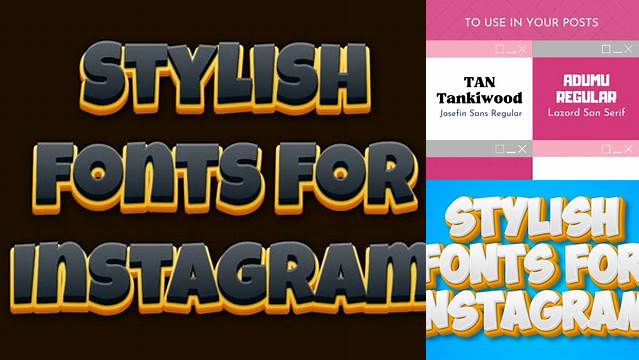
Fonts For Instagram: How To Make Your Posts Stand Out
Are you looking to spice up your Instagram game? Do you want your posts and stories to stand out from the crowd? Well, one of the easiest and most effective ways to do that is by using unique and eye-catching fonts. Let's dive into the world of fonts for Instagram, where we'll explore how to use them, where to find them, and how to make your Instagram content truly shine. We all know how crucial it is to make your Instagram profile pop. In this digital age, visual appeal is everything. Think about it, guys – how many times have you scrolled through your feed, only to stop at a post that had a certain je ne sais quoi? Often, it’s the font that grabs your attention. Using different fonts isn't just about aesthetics; it's about branding, conveying emotion, and making your content more engaging. Your choice of font can speak volumes about your personality or your brand’s identity. A playful script font might be perfect for a fun, creative account, while a bold, sans-serif font can give off a more modern and professional vibe. Choosing the right font can dramatically improve your content's impact. Consider how different fonts evoke different feelings – a handwritten style can feel personal and intimate, while a clean, minimalist font can project sophistication and clarity. This is why understanding the nuances of typography is key to crafting a compelling visual narrative on Instagram. We'll also cover some of the best tools and apps to help you incorporate these cool fonts seamlessly. Whether you're a seasoned influencer or just starting out, mastering the art of Instagram typography is a game-changer. So, let’s get started and turn your Instagram profile into a visual masterpiece!
Why Fonts Matter on Instagram
Let's face it, guys, Instagram is a visual platform. You need to captivate your audience in a split second, and the font you use plays a huge role in this. A well-chosen font can communicate your message more effectively, reflect your brand's personality, and make your content more engaging. Think of fonts as the voice of your visuals. Just like you choose your words carefully, your font should be a deliberate choice that enhances your overall message. When you use the same generic font as everyone else, your content risks blending into the background. But when you select a font that’s unique and aligned with your brand, you instantly create a distinct visual identity. This is especially important for businesses and influencers looking to establish a recognizable brand presence. Fonts are more than just pretty letters; they’re a powerful tool for communication. They can convey a wide range of emotions and tones, from playful and whimsical to serious and professional. A bold, impactful font can grab attention and make a statement, while a softer, more delicate font can create a sense of intimacy and elegance. And, let’s not forget about readability. A stylish font is useless if your audience can’t easily read it. Balancing aesthetics with functionality is crucial. Your followers should be able to quickly grasp your message without straining their eyes. Imagine scrolling through your feed and seeing a post with a font that perfectly captures the mood – it's instantly more appealing, right? That's the power of a great font. It draws people in, holds their attention, and ultimately makes your content more memorable. So, take the time to explore different fonts and find the ones that truly resonate with your style and message. It's one of the simplest yet most impactful ways to elevate your Instagram presence.
Finding the Perfect Font for Your Instagram
Okay, so where do you find these amazing fonts? Instagram itself has a limited selection of fonts for stories and reels, but don't worry, there are tons of apps and websites out there that can help you create text with custom fonts that you can then copy and paste into your Instagram posts and bios. Let's explore some of the best resources for finding the perfect font to express your unique style. First off, let's talk about font generator websites. These are fantastic because they're usually free and super easy to use. You just type in your text, and the website generates a variety of font styles for you to choose from. Websites like LingoJam, CoolSymbol, and Fonts for Instagram are popular options. They offer a wide range of fonts, from elegant scripts to bold, attention-grabbing styles. One thing to keep in mind with these font generators is that they often use Unicode characters to create the different styles. This means that while they look great on Instagram, they might not display correctly on all devices or platforms. It's always a good idea to double-check your text on a few different devices to make sure it looks the way you intended. Next up, we have font apps. These apps often offer more advanced features and a wider selection of fonts compared to websites. Apps like Font Studio, Over, and Canva are great for creating visually stunning posts with custom fonts. They often include templates and editing tools that make it easy to design professional-looking graphics. Canva, in particular, is a powerhouse for social media design. It has a huge library of fonts and design elements, and its user-friendly interface makes it perfect for both beginners and experienced designers. You can create everything from Instagram posts and stories to logos and marketing materials. Another great option is to explore dedicated font websites like Google Fonts and DaFont. These websites offer a vast collection of fonts that you can download and use in your designs. Google Fonts is especially useful because all the fonts are free and open-source, meaning you can use them for both personal and commercial projects. DaFont has a more eclectic mix of fonts, including many unique and quirky styles. Just be sure to check the licensing terms before using a font from DaFont, as some fonts may have restrictions on commercial use.
How to Use Custom Fonts on Instagram
Now that you've found the perfect font, how do you actually use it on Instagram? It's simpler than you might think. The key is to use a font generator or app to create your text, then copy and paste it into your Instagram bio, captions, or stories. Let's break down the process step-by-step so you can start using custom fonts like a pro. First, choose your font generator or app. As we discussed earlier, there are many great options available, such as LingoJam, CoolSymbol, Fonts for Instagram, Font Studio, Over, and Canva. Each of these tools has its own unique features and font selection, so experiment with a few to find the one that best suits your needs. Once you've chosen your tool, the next step is to type your text. This could be your bio, a caption for a post, or text for an Instagram story. Think about the message you want to convey and how the font can help enhance that message. For example, if you're writing a caption for a fun and playful photo, you might choose a script font or a whimsical handwritten style. If you're creating a professional-looking post for your business, you might opt for a clean, sans-serif font. After you've typed your text, it's time to browse the available fonts and choose the one you like best. Most font generators and apps will display your text in a variety of different fonts, making it easy to compare styles and find the perfect match. Take your time and try out different options until you find a font that truly captures the essence of your message and brand. Once you've found the perfect font, the next step is to copy the text. Most font generators and apps have a simple copy button that makes this easy. Just click the button, and the text will be copied to your clipboard. Now, it's time to head over to Instagram and paste your text. Go to the section where you want to use the custom font, whether it's your bio, a caption, or a story. Simply tap and hold in the text field, and then select the paste option. Your text with the custom font should now appear in the field. One important thing to keep in mind is that custom fonts generated using Unicode characters might not display correctly on all devices or platforms. It's always a good idea to double-check your text on different devices to ensure it looks the way you intended. If you notice any issues, you might need to try a different font or a different font generator.
Best Fonts to Use for Different Instagram Aesthetics
Different Instagram aesthetics call for different fonts. A minimalist feed might benefit from a clean sans-serif font, while a more whimsical aesthetic could use a playful script. Let's explore some font pairings and styles that work well with various Instagram themes. For a minimalist aesthetic, think clean lines and simplicity. Sans-serif fonts like Montserrat, Open Sans, and Lato are excellent choices. These fonts are easy to read and give off a modern, uncluttered vibe. They're perfect for accounts that focus on sleek design, minimalist photography, or a clean, professional look. These fonts ensure your text complements your visuals without overpowering them. If you're going for a more elegant and sophisticated aesthetic, consider serif fonts like Playfair Display, Times New Roman, or Garamond. Serif fonts have a classic, timeless feel and can add a touch of refinement to your Instagram posts. They work particularly well for accounts that showcase luxury products, fashion, or travel. Imagine a beautifully styled photo of a high-end handbag paired with a caption in Playfair Display – the combination exudes elegance and style. For a fun and playful aesthetic, script and handwritten fonts are the way to go. Fonts like Pacifico, Brush Script MT, and Lobster can add a whimsical touch to your Instagram content. These fonts are perfect for accounts that focus on creativity, humor, or a lighthearted approach. Think of a cute illustration with a caption in Pacifico – it instantly feels more approachable and fun. Just be careful not to overuse script fonts, as they can be harder to read in large blocks of text. If you're aiming for a bold and impactful aesthetic, choose strong, attention-grabbing fonts like Bebas Neue, Impact, or Anton. These fonts are perfect for making a statement and drawing attention to your message. They work well for accounts that focus on fitness, motivation, or a powerful message. Picture a motivational quote in Bebas Neue – it commands attention and inspires action. If you want to create a vintage or retro aesthetic, look for fonts with a classic, old-fashioned feel. Fonts like Courier New, American Typewriter, or a distressed sans-serif can transport your followers back in time. These fonts are perfect for accounts that showcase vintage fashion, retro photography, or a nostalgic theme. Imagine a photo of a vintage car with a caption in Courier New – it perfectly captures the retro vibe. When choosing fonts for your Instagram, it's also important to consider font pairings. Using two different fonts can add visual interest and hierarchy to your text. A good rule of thumb is to pair a sans-serif font with a serif font, or a bold font with a more delicate font. For example, you could pair Montserrat with Playfair Display, or Bebas Neue with Open Sans. Experiment with different combinations to find what works best for your aesthetic.
Tools and Apps for Instagram Fonts
Alright, let's talk about the tools and apps that will make your font dreams a reality. There are tons of options out there, but we're going to focus on some of the most user-friendly and feature-rich apps that will help you create stunning Instagram content with custom fonts. These tools range from simple font generators to full-fledged design platforms, so there's something for everyone, regardless of your skill level. First up, we have Canva, which we mentioned earlier. Canva is a powerhouse for social media design, and it's one of the best tools for creating visually stunning Instagram posts and stories. It has a huge library of fonts, design elements, and templates, and its user-friendly interface makes it perfect for both beginners and experienced designers. You can use Canva to create everything from eye-catching graphics to cohesive branding materials. One of the great things about Canva is that it offers both a free version and a paid version, so you can start using it without spending any money. The free version includes a wide range of fonts and design elements, but the paid version unlocks even more features, including access to premium fonts, templates, and stock photos. Next, let's talk about Adobe Spark Post. Adobe Spark Post is another fantastic design app that's perfect for creating social media graphics. It's part of the Adobe Creative Cloud suite, but it's also available as a standalone app. Adobe Spark Post has a clean, intuitive interface and offers a wide range of templates, fonts, and design elements. It's particularly well-suited for creating animated graphics and videos for Instagram stories. Like Canva, Adobe Spark Post offers both a free version and a paid version. The free version includes a good selection of features, but the paid version unlocks more advanced tools and removes the Adobe Spark branding. If you're looking for a dedicated font app, Font Studio is a great option. Font Studio is available for both iOS and Android, and it offers a wide range of fonts and text customization options. You can use Font Studio to add text to photos, create text-based graphics, and even design custom logos. It also includes a variety of filters and effects to help you enhance your designs. Another popular font app is Over. Over is a versatile design app that's perfect for creating social media graphics, posters, and other visual content. It has a clean, modern interface and offers a wide range of fonts, graphics, and templates. Over also includes a variety of editing tools, so you can fine-tune your designs to perfection. In addition to these apps, there are also many font generator websites that you can use to create custom fonts for Instagram. Websites like LingoJam, CoolSymbol, and Fonts for Instagram are popular options. These websites are typically free and easy to use, and they offer a wide range of fonts to choose from. However, keep in mind that fonts generated using these websites might not display correctly on all devices, so it's always a good idea to double-check your text on different devices.
Common Mistakes to Avoid When Using Fonts on Instagram
Using stylish fonts can really elevate your Instagram game, but there are some common pitfalls to watch out for. Let's discuss some mistakes you'll want to avoid to ensure your content looks its best and your message comes across clearly. First off, overusing fonts is a big no-no. It's tempting to use a different font for every single word, but this can quickly make your content look cluttered and chaotic. Stick to a maximum of two or three fonts per post or story to maintain a clean and cohesive look. Think of it like a well-coordinated outfit – you want different elements to complement each other, not compete for attention. Using too many fonts is like wearing every accessory you own at once; it’s just too much. Another common mistake is choosing fonts that are difficult to read. A fancy, ornate font might look beautiful, but if your followers have to squint to decipher your message, they're likely to scroll right past it. Prioritize readability over aesthetics. Your font should enhance your message, not obscure it. Think about the user experience – is your text easy to read at a glance? If not, it's time to reconsider your font choice. Inconsistent font use is another mistake that can undermine your brand's visual identity. If you're using a different font for every post, your feed will lack a sense of cohesion. Choose a few fonts that align with your brand's personality and stick to them. This consistency will help your followers recognize your content instantly. Imagine your Instagram feed as a visual story – you want each chapter to flow seamlessly into the next. Consistent font use is like a common thread that ties everything together. Don't forget about font size and spacing. Text that's too small can be difficult to read, especially on mobile devices. Similarly, text that's too cramped can feel overwhelming. Pay attention to the size and spacing of your text to ensure it's comfortable to read. Think about how your text looks on different screen sizes – is it still legible on a smaller device? Adjust your font size and spacing as needed to optimize readability. Finally, avoid ignoring your brand's personality when choosing fonts. Your font should reflect your brand's values and style. If you're a fun and playful brand, a script font or a whimsical font might be a good fit. If you're a professional and sophisticated brand, a clean sans-serif font might be more appropriate. Your font is part of your brand's visual identity, so choose it wisely. Consider your target audience – what fonts will resonate with them? Aligning your font choices with your brand's personality will create a cohesive and impactful visual presence.
Level Up Your Instagram with the Perfect Fonts
So, there you have it, guys! A comprehensive guide to fonts for Instagram. We've covered why fonts matter, where to find them, how to use them, and common mistakes to avoid. Now it's time to put your newfound knowledge to the test and start experimenting with different fonts to elevate your Instagram content. Remember, the right fonts can make your posts more engaging, reflect your brand's personality, and help you stand out from the crowd. Don't be afraid to try new things and see what resonates with your audience. Think about your Instagram aesthetic and choose fonts that complement your overall style. Are you going for a minimalist look? A playful vibe? A sophisticated feel? Your font choices should align with your vision and help you create a cohesive visual identity. Consider your message – what do you want to communicate with your fonts? A bold font can convey confidence and authority, while a script font can add a touch of elegance and creativity. Think about the emotions and associations that different fonts evoke and choose the ones that best convey your message. Explore the tools and apps we've discussed and find the ones that work best for you. Canva, Adobe Spark Post, Font Studio, Over, and various font generator websites offer a wide range of features and options, so experiment with different platforms and discover your favorites. Remember the common mistakes to avoid – don't overuse fonts, prioritize readability, maintain consistent font use, pay attention to font size and spacing, and choose fonts that reflect your brand's personality. By avoiding these pitfalls, you'll ensure that your font choices enhance your content rather than detract from it. So go ahead, guys, level up your Instagram game with the perfect fonts! Start experimenting, have fun, and watch your content shine. With a little bit of effort and creativity, you can transform your Instagram feed into a visual masterpiece that captivates your audience and leaves a lasting impression. Your followers will thank you for it, and your brand will reap the rewards. Happy font hunting!